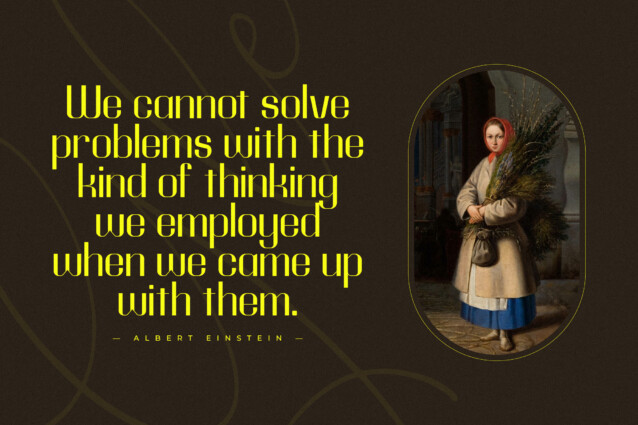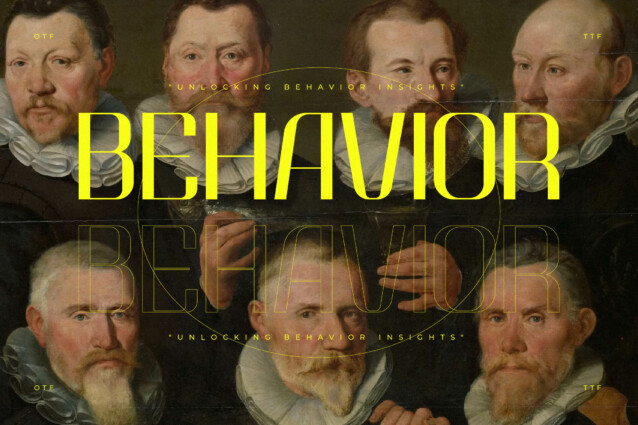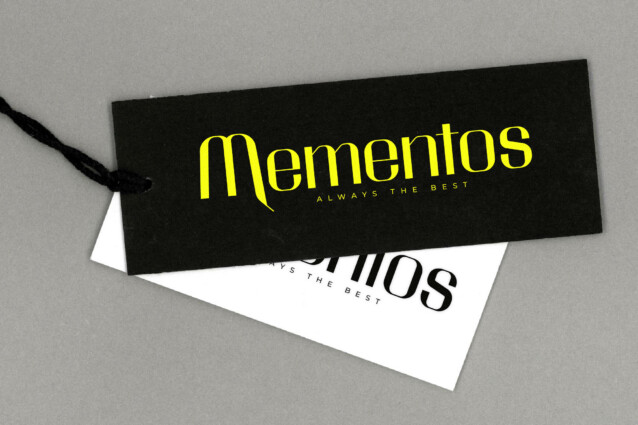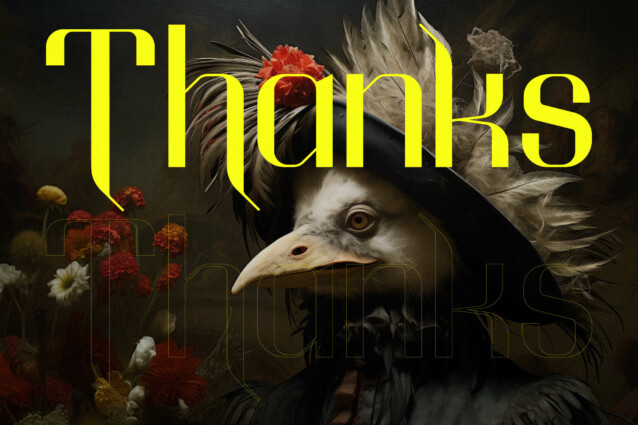
Gleriouh Font
Gleriouh Font is a serif modern and classic typeface that has own unique style & modern look. This typeface is perfect for an elegant & luxury logo, book or movie title design, fashion brand, magazine, clothes, lettering, quotes, and so much more.